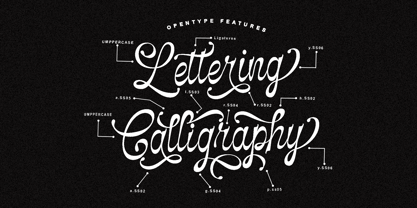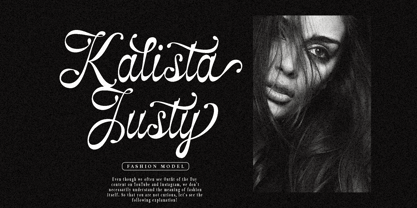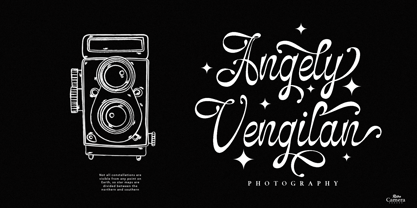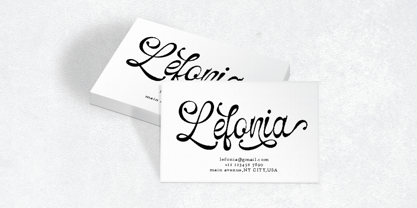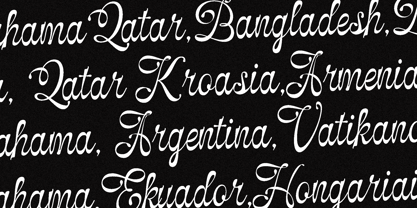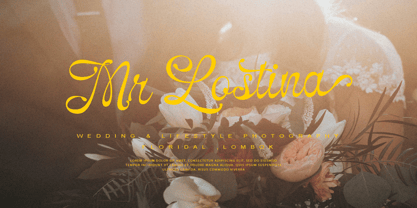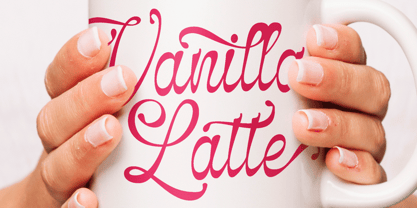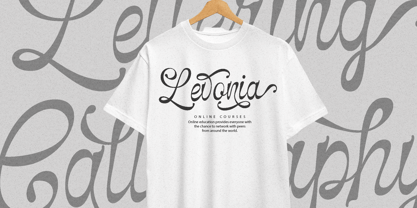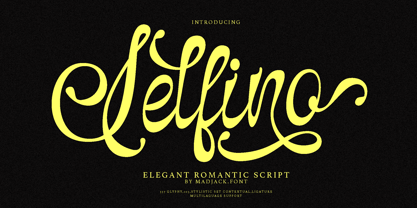
Selfino Script
by madjack.font
The Selfino Script Font Family was designed by Zaki Muhammad and published by madjack.font. Selfino Script contains 1 styles. More about this family
Selfino Script is a modern script font that features a classic and elegant touch.
Selfino Script is appealing because it is sleek, clean, feminine, sensual, glamorous, simple, and very readable, thanks to its many luxurious letter connections. I also offer a number of decent style alternatives for some of the letters. The classic style is perfect for use in various formal forms such as invitations, labels, restaurant menus, logos, fashion, makeup, stationery, novels, magazines, books, greeting/wedding cards, packaging, labels, or any type of advertising purposes. . . . . . . .
Designers: Zaki Muhammad
Current Foundry: madjack.font